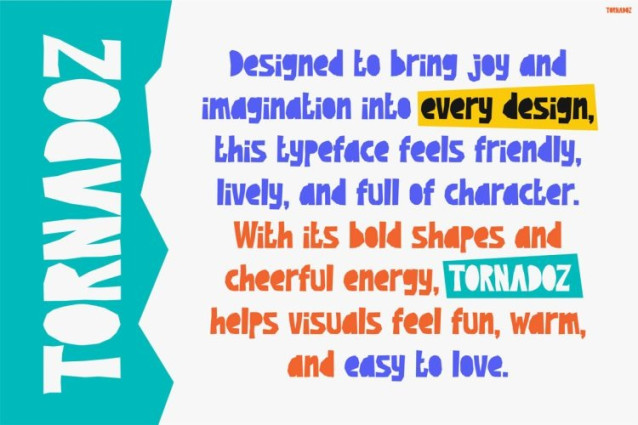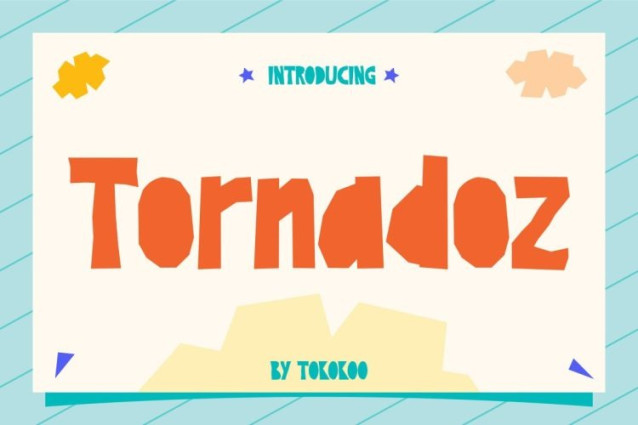
Tornadoz Font is a bold, cheerful, and expressive typeface created to bring instant joy into children-focused designs. From the very first glance, this font feels alive. Its chunky letterforms, playful proportions, and friendly curves make every word look fun, warm, and inviting. Kids Font Tornadoz stands out because it balances strong visual impact with excellent readability. Each character feels energetic yet simple, which helps messages stay clear while still looking exciting. As a result, this font works perfectly for headlines, short messages, and visual storytelling that needs to grab attention fast. Moreover, the hand-crafted feel adds personality, making designs feel more human and approachable. Instead of feeling stiff or generic, Tornadoz turns letters into happy shapes that spark imagination and curiosity.
Kids Font Tornadoz is designed to celebrate creativity, playfulness, and bold expression. The font features thick strokes, rounded corners, and dynamic shapes that feel friendly and expressive. Because of its strong structure, Tornadoz remains easy to read even at smaller sizes. At the same time, its playful style shines in large display use. Each letter feels like it is smiling, jumping, or telling a story. Therefore, this font works beautifully in posters, packaging, social media graphics, and children’s branding. In addition, the font supports numbers and punctuation that match the same joyful tone. This consistency helps designers build cohesive visuals across multiple platforms. Whether used on digital screens or printed materials, Tornadoz keeps designs lively and engaging.
Kids Font Tornadoz is perfect for designers, illustrators, educators, and brands that focus on children and family audiences. It suits kids’ products, snack and food packaging, learning materials, school projects, and playful campaigns. Furthermore, it works great for YouTube thumbnails, Instagram posts, event flyers, and toy branding. Small businesses, content creators, and teachers will also love how easy it is to use while still looking unique. If your goal is to make people smile, especially kids, Tornadoz is a smart choice.
In the end, Kids Font Tornadoz helps your designs feel happier, louder, and more memorable. It turns simple words into fun visual moments. So, if you want your message to feel friendly, bold, and full of imagination, this font is ready to deliver. Add Tornadoz to your collection today and let every letter tell a joyful story.